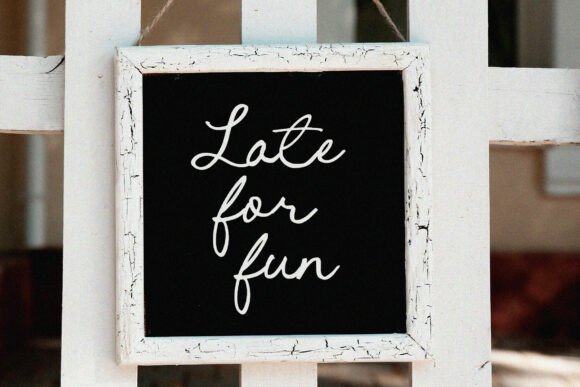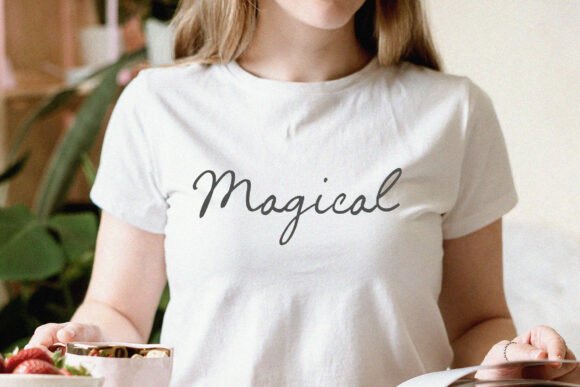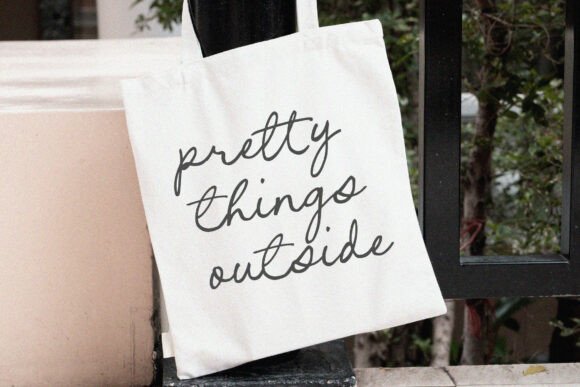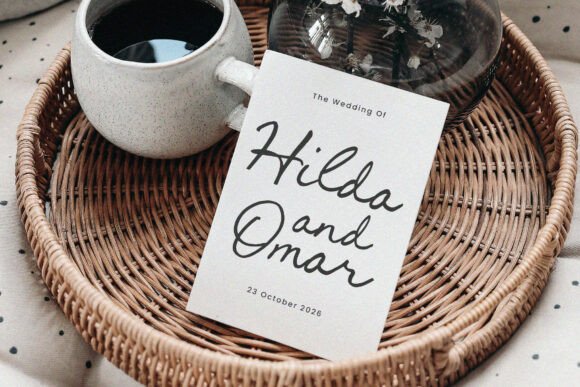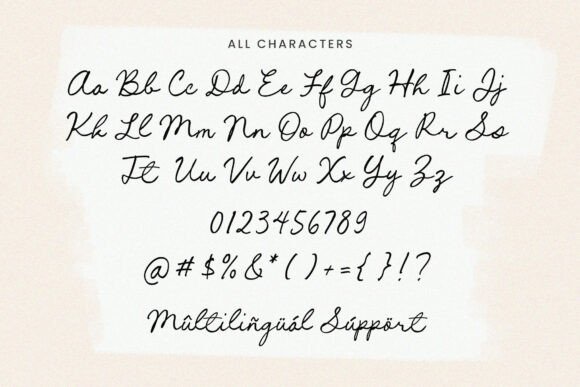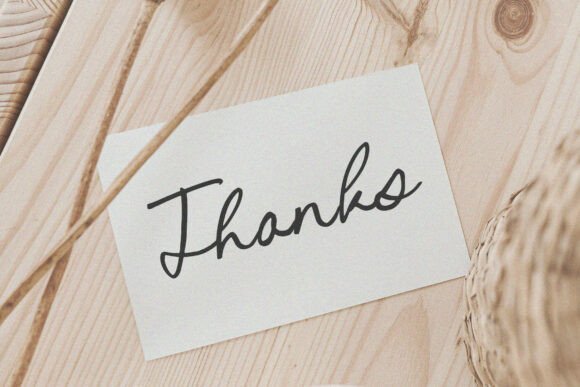
Introducing Cursive Amber: The Elegant Handwritten Script Font You Need
Have you ever been in the middle of a design project, and suddenly, you just can’t seem to find the right font? I know I have. It was a beautiful Saturday morning when I received a last-minute request from a client to create a custom invitation for a wedding. The theme was elegant and vintage, and I needed a font that would bring it all together. That’s when I stumbled upon Cursive Amber, a stunning handwritten script font from Timurtype Studio.
As I began to work with Cursive Amber, I was immediately drawn to its smooth, flowing strokes and elegant letter connections. It mimicked natural penmanship, giving it a warm and inviting feel that was perfect for the wedding invitation. I knew right then and there that I had found the perfect font for the job.
An Honest Review of Cursive Amber
- ✨ Smooth and flowing strokes: Cursive Amber’s elegant letter connections make it perfect for creating beautiful, handwritten-style text.
- ✅ Elegant and sophisticated: This font exudes a sense of luxury and refinement, making it ideal for high-end designs.
- 🌈 Multilingual support: Cursive Amber supports multiple languages, making it a versatile font for designers working with international clients.
While Cursive Amber is an excellent font, there are a few things to keep in mind:
- 🤔 Some letters may require manual kerning: As with any script font, some letters may need manual kerning to achieve optimal spacing.
- ⚠️ Not suitable for body text: Cursive Amber is best used for headlines, titles, and short paragraphs, as it can be challenging to read in large blocks of text.
The Story Behind Cursive Amber
Cursive Amber was designed by Timurtype Studio with the goal of creating a beautiful, elegant script font that would bring a touch of sophistication to any design. The font’s creator was inspired by the flowing strokes and elegant letter connections of traditional handwriting, and sought to capture that feeling in a digital font.